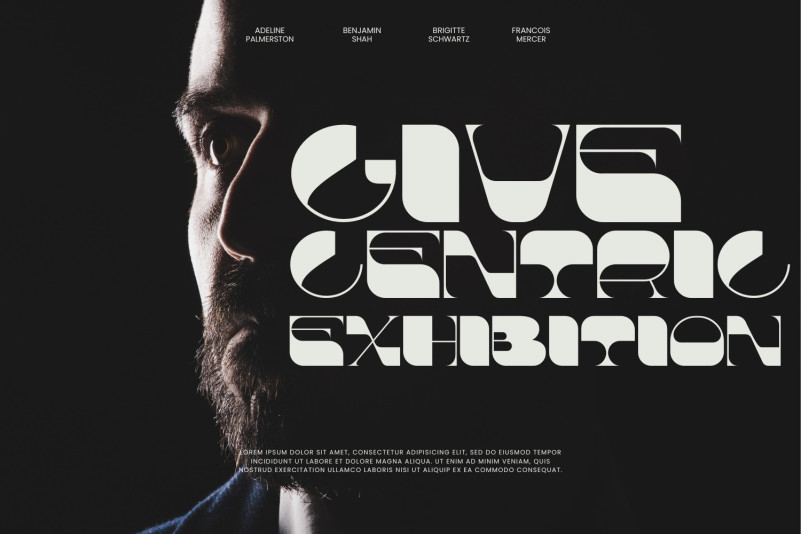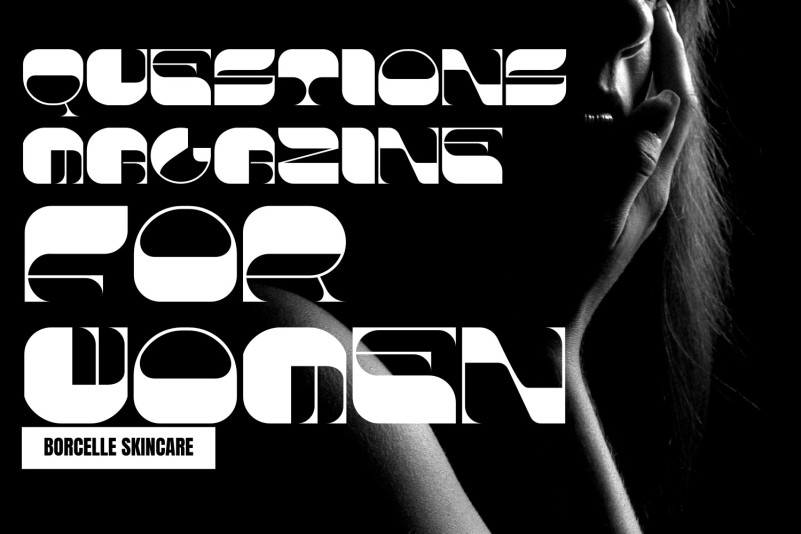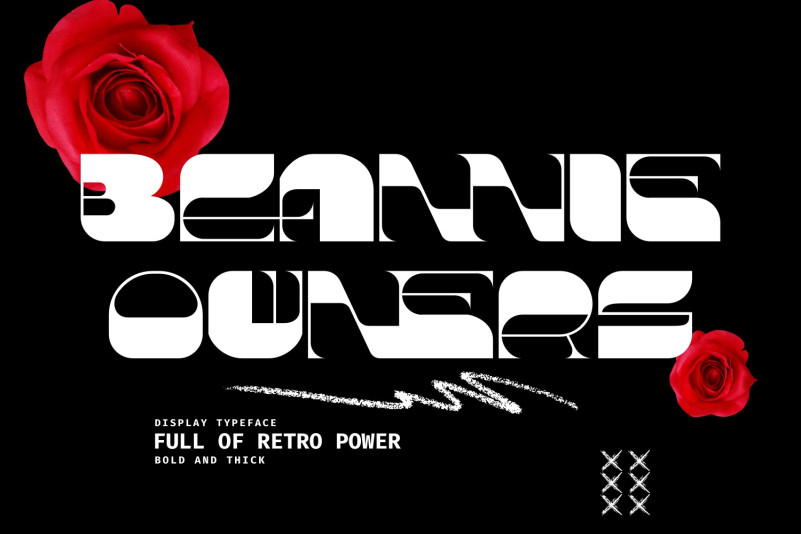
Beannie Owners Font
Beannie Owners Retro Font is a display typeface full of retro power. Its quirky, groovy, and funky— definitely charming. Bold and thick, a fun typeface to play with! Its fun and groovy with a bold personality. Best for branding, Webdesign project, Clothing brand, logo design, valentine’s greetings, packaging, and much more.
To make it look more unique, here we prepared some ligatures:
AE AF AH AP AR EA EE EF EH EP ER FA FE FF FH FP FR HA HE HF HH HP HR JE JB JH JJ JL JN JU JW MA ME MF MM MN MP MR NW NU NR NP NN NL NJ NH NF NE UL UI UJ WL WJ WE